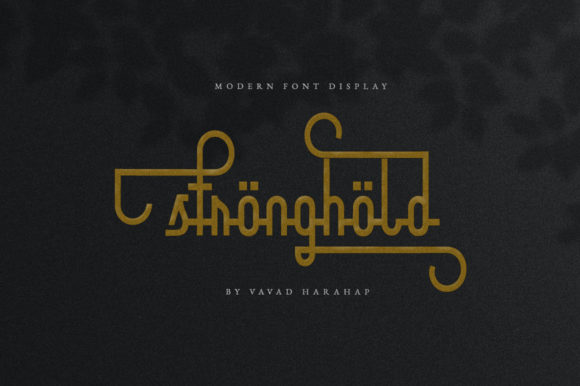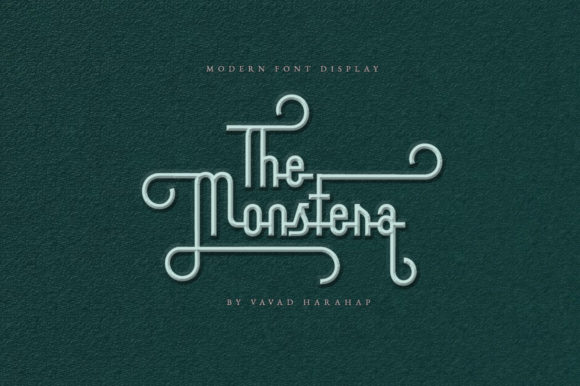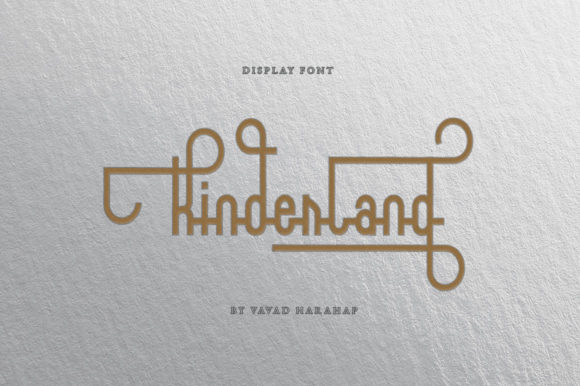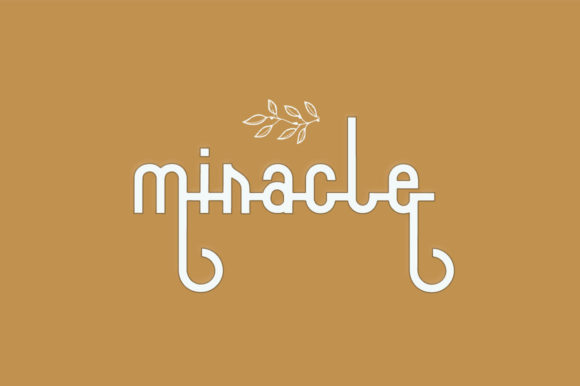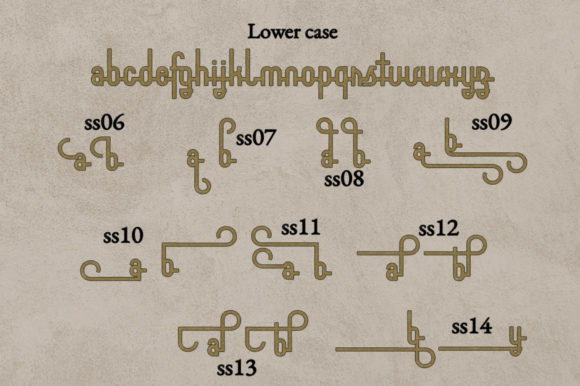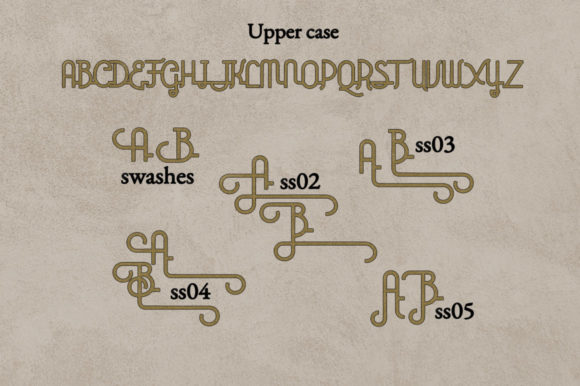
Introduction to Aklirics Font
Aklirics is a unique display font.
It features a modern and outstanding style Use it for your upcoming crafting projects and see how they come alive.
Key Features of Aklirics Font